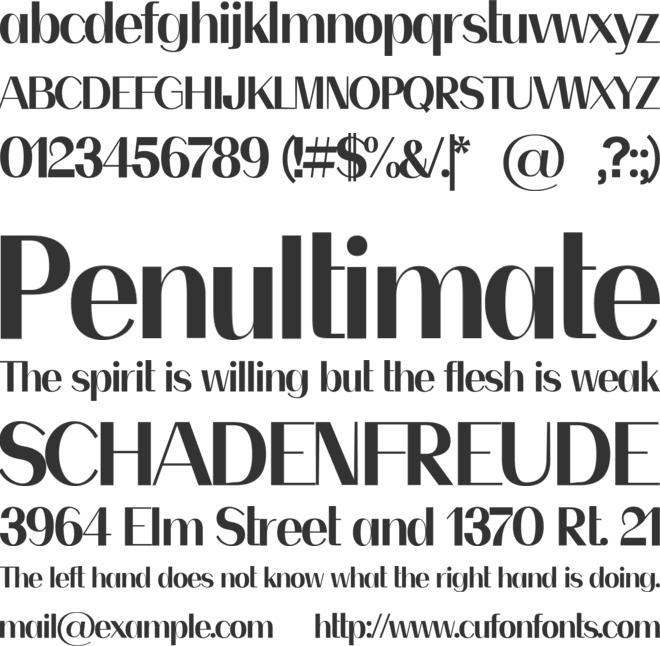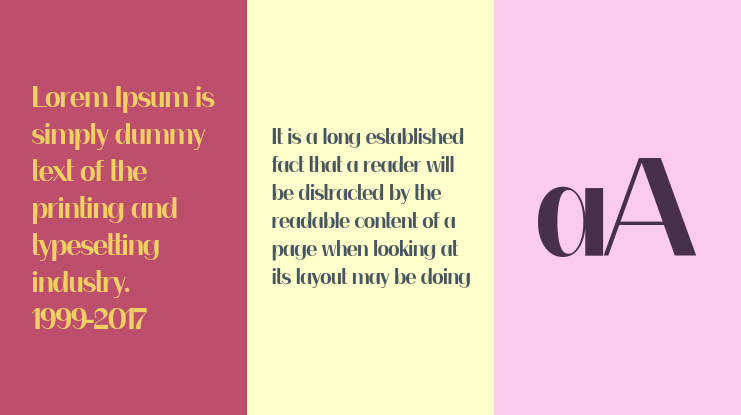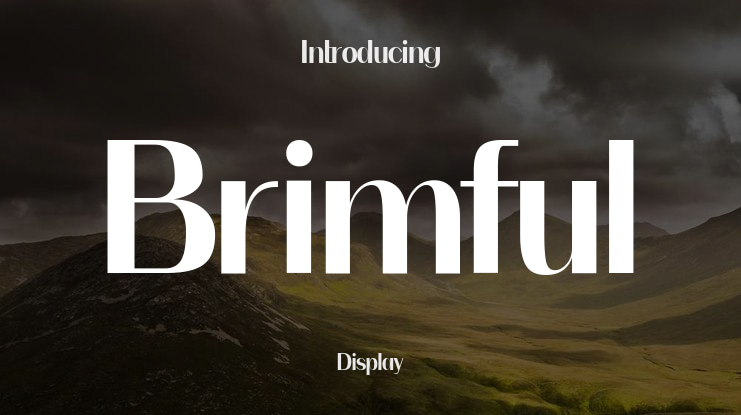
Brimful Font Family
🎨 Font Name: Brimful by Minimalist Art Studio
🎨 Font description: Brimful is an elegant sans serif with multilingual support—ideal for minimalist branding, beauty packaging, and editorial design.